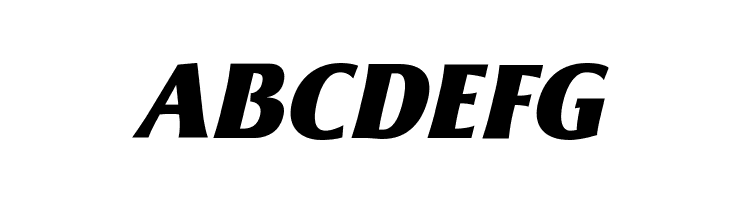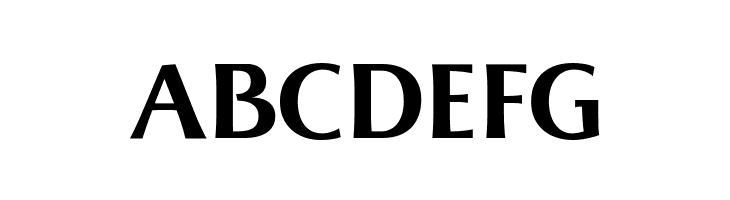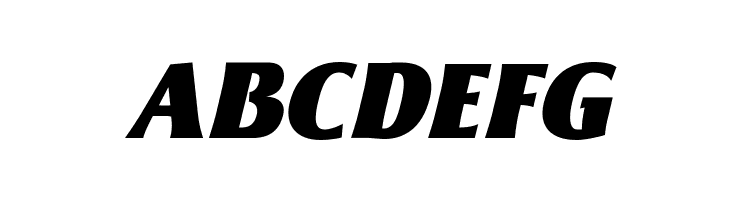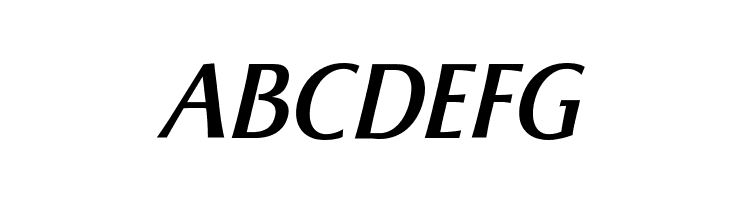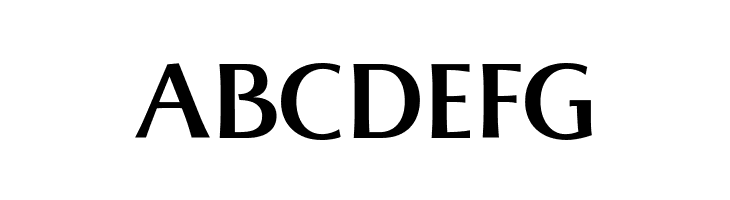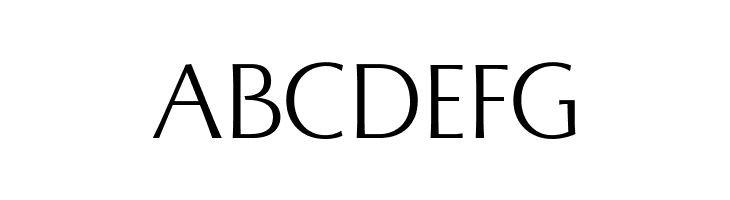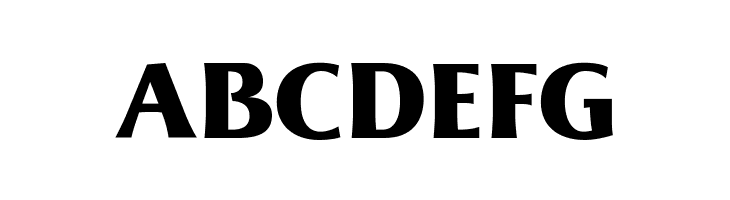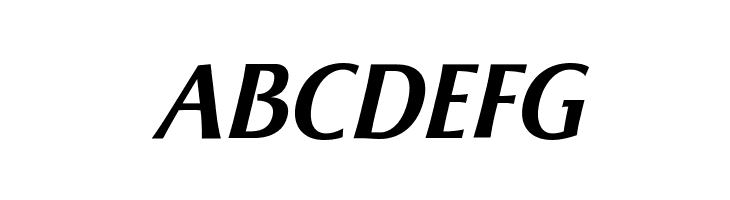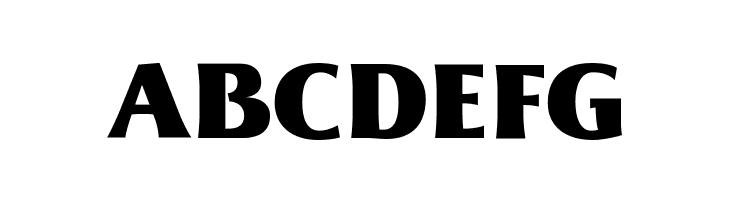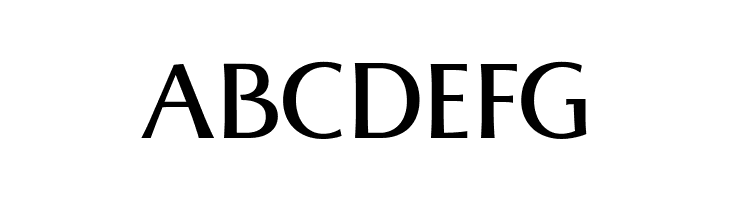
A bold, high-contrast serif font with elegant curves and a modern twist.
A bold, high-contrast serif font with a classic yet modern style.
A bold, high-contrast italic serif font with a dynamic and elegant style.
A bold, italic font with high contrast and elegant style.
A bold, italicized font with strong, dynamic strokes and high contrast.
A bold, high-contrast serif font with pronounced serifs and a traditional flair.
A bold, serif font with a classic and commanding style.
An elegant serif italic font with a classic and refined style.
A refined serif font with light strokes and elegant curves.
Elegant and sophisticated italic font with delicate serifs and smooth curves.